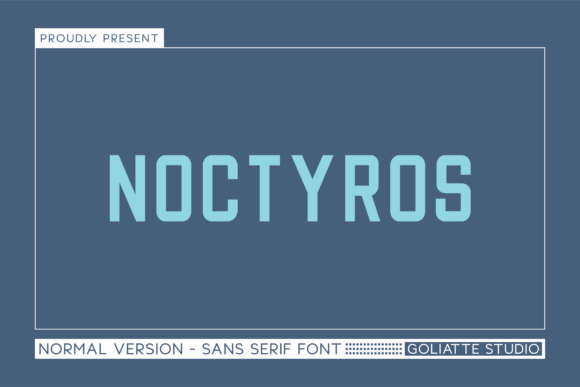
Noctyros Font: The Epitome of Modern Minimalism and Industrial Elegance
In the realm of typography, fonts play a pivotal role in shaping the visual identity of a design project. Among the myriad of fonts available, Noctyros stands out as a beacon of modern minimalism and industrial sophistication. This sans-serif font has been meticulously crafted to embody the essence of contemporary design, making it an ideal choice for those seeking to infuse their projects with a bold, yet refined aesthetic.
The Design Philosophy of Noctyros
Noctyros is the culmination of a design philosophy that seeks to marry modern minimalism with an industrial edge. Its clean, geometric letterforms are characterized by uniform strokes and sharp, precise lines that convey a sense of confidence and clarity. This deliberate design approach ensures that Noctyros exudes a sense of strength and elegance, making it a versatile font suitable for a wide array of creative applications.
Key Features of Noctyros Font
- Clean Geometric Letterforms: Noctyros boasts letterforms that are geometric, clean, and free from unnecessary embellishments. This feature lends the font its distinctive modern look.
- Uniform Strokes: The uniform strokes in Noctyros contribute to its industrial feel, providing a consistent texture that enhances readability.
- Sharp and Precise Lines: The sharp, precise lines of Noctyros not only add to its sleek aesthetic but also ensure clarity, making it perfect for both digital and print media.
- Versatility: Noctyros is highly versatile, capable of adapting to various design needs, from headlines and posters to logos, branding, and digital interfaces.
Applications of Noctyros Font
The versatility of Noctyros makes it an invaluable asset for designers across different creative fields. Here are some of the key areas where Noctyros can make a significant impact:
- Headlines and Posters: Noctyros’s bold and modern aesthetic makes it perfect for striking headlines and eye-catching posters that demand attention.
- Logos and Branding: For businesses looking to establish a strong brand identity, Noctyros offers a sleek and professional tone that can elevate a brand’s visual presence.
- Digital Interfaces: In the digital realm, Noctyros’s crisp readability and streamlined style make it an excellent choice for UI/UX design, ensuring a seamless user experience.
The Impact of Noctyros on Design Projects
Incorporating Noctyros into a design project can have a transformative effect, elevating the project’s visual appeal and communicative power. Here are some ways Noctyros can enhance a design:
- Enhanced Readability: Noctyros’s clear and precise lines ensure that messages are conveyed with clarity, making it easier for audiences to engage with the content.
- Professional Tone: The font’s sleek and modern aesthetic imparts a refined, professional tone to any design, which is crucial for establishing credibility and trust.
- Modern Vibe: Noctyros’s forward-thinking design ensures that any project it’s used in feels contemporary and aligned with current design trends.
Why Choose Noctyros?
In a world where design trends are constantly evolving, Noctyros offers a timeless appeal that can future-proof your design projects. Here are compelling reasons to choose Noctyros:
- Timeless Design: Noctyros’s minimalist and industrial design elements ensure that it remains relevant across various design trends.
- Versatility: Its adaptability to different design applications makes Noctyros a valuable addition to any designer’s toolkit.
- Enhanced Engagement: By making content more readable and visually appealing, Noctyros can increase audience engagement and enhance the overall impact of a design project.
Noctyros font represents a perfect blend of modern minimalism and industrial elegance, making it an exceptional choice for designers aiming to create bold and contemporary designs. Its clean geometric letterforms, uniform strokes, and sharp lines ensure not only a sleek aesthetic but also clarity and readability. Whether it’s for striking headlines, logos, branding, or digital interfaces, Noctyros offers a versatile and refined solution that can elevate any design project. By choosing Noctyros, designers can ensure their work stands out with a professional tone and a forward-thinking vibe.